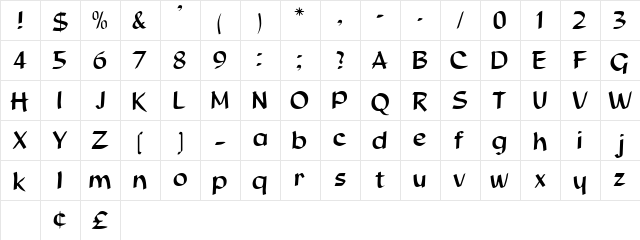
Beauregard Display SSi Regular
Design Context for Beauregard Display SSi Typeface
Beauregard Display SSi brings ornamental detail and strong personality to headlines and identities, where visual impact matters more than quiet functionality.
Font Pairing: Pair with a clean neutral sans-serif for body copy to let Beauregard Display SSi's character lead without overwhelming the composition.
Pro Tip: Use Beauregard Display SSi exclusively at display sizes — it was designed to be seen, not read at length. Let a neutral companion handle body copy.